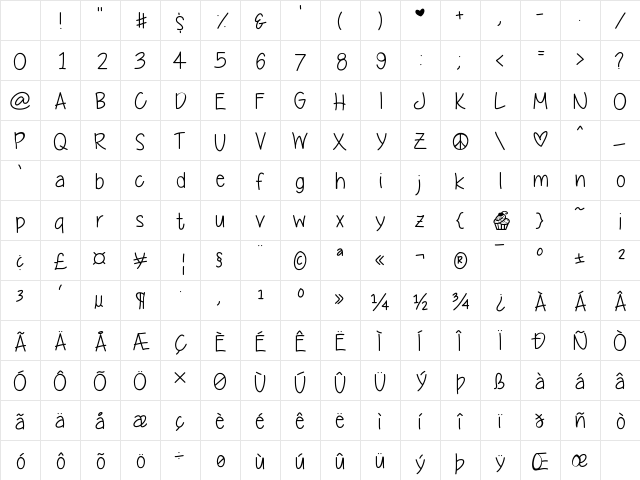
Complete YummyCupcakes Medium glyph index. Displaying only characters natively supported by YummyCupcakes Medium font.
YummyCupcakes is a composed and adaptable typeface that performs quietly and consistently across a wide range of design contexts.